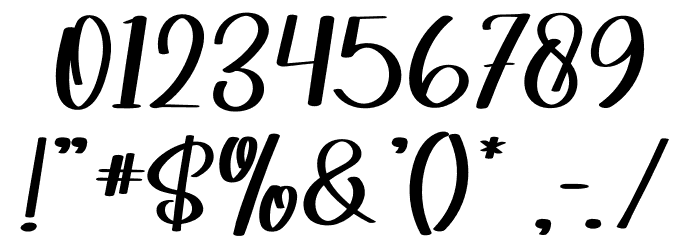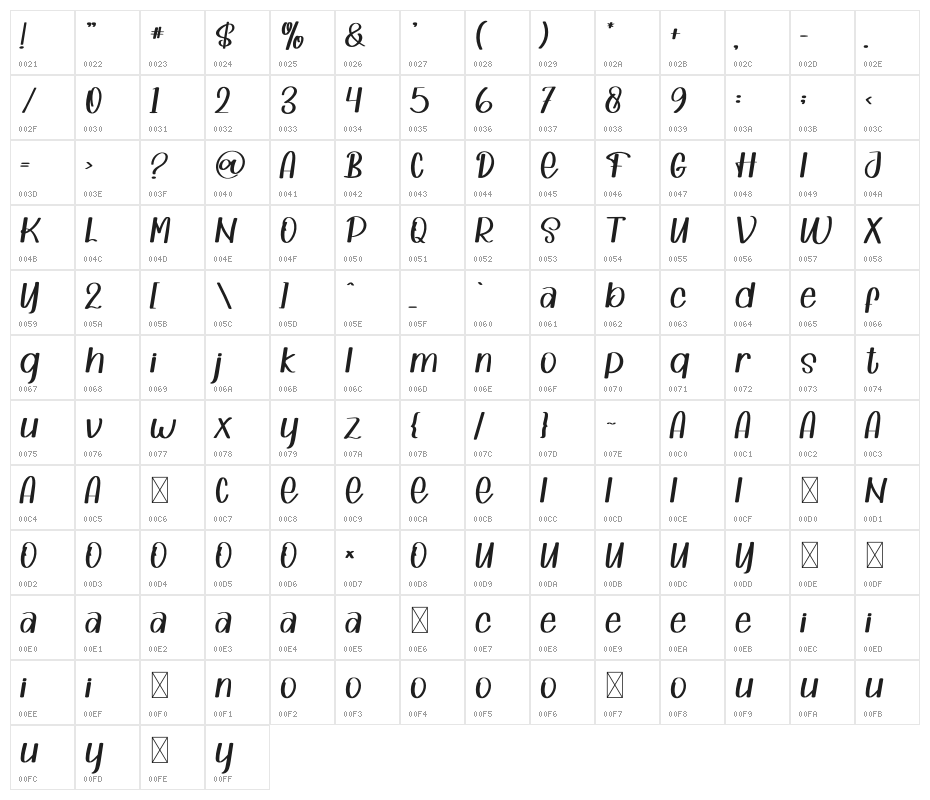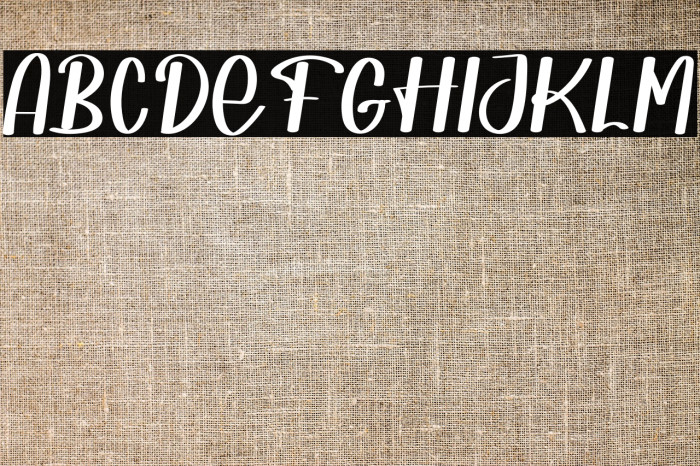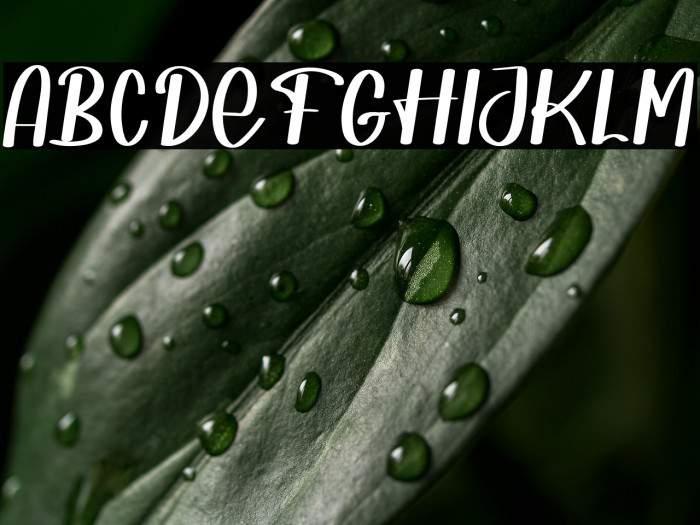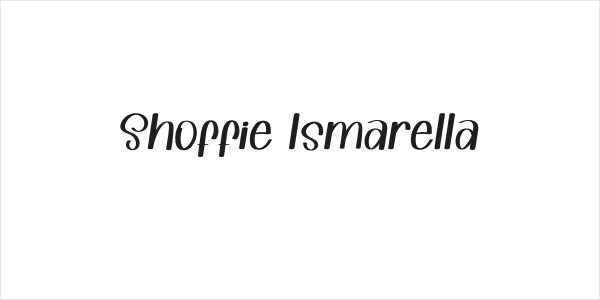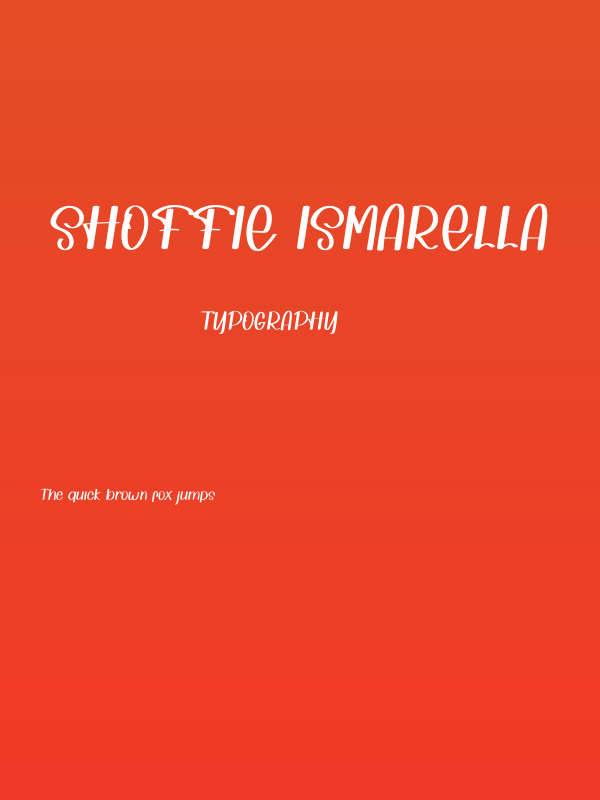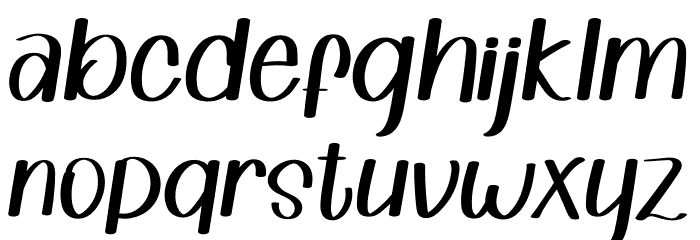
Shoffie Ismarella Font
Shoffie Ismarella Description
This font features a playful and flowing script style with a modern twist. The characters are slightly slanted, giving a sense of movement and elegance. The uppercase letters are bold and prominent, while the lowercase letters maintain a consistent flow with smooth curves and rounded edges. The numerals are clear and distinct, matching the overall style of the alphabet. Special characters are creatively designed, adding to the font's decorative appeal. The strokes vary in thickness, providing a medium contrast that enhances readability while maintaining a stylish appearance.